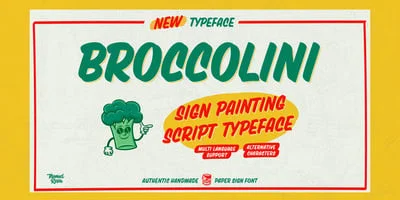
Broccolini Font
Broccolini Font is perfect for organic design projects including health food stores, vegetarian restaurants, organic farming cooperatives, plant-based nutrition brands, healthy lifestyle magazines, green smoothie bars, organic produce markets, and wellness-focused marketing campaigns. This fresh typeface works perfectly for vegan cafes, organic grocery chains, nutritional supplement companies, farm-to-table establishments, and projects that celebrate healthy eating and the nutritional benefits of fresh vegetables and plant-based living.
What makes Broccolini Font exciting is its fresh organic character that perfectly captures the essence of healthy nutrition and plant-based vitality. The font features crisp letterforms with vegetable-inspired curves that reflect the natural freshness and nutritional abundance of organic produce. Its healthy design elements embody the spirit of wellness nutrition and organic farming, making it perfect for projects that need to convey freshness, health, and connection to organic food culture. The carefully crafted fresh proportions create an atmosphere of nutritional sophistication and organic authenticity.
Broccolini Font comes in multiple family variations including fresh, organic, healthy, and nutritious styles. Each weight maintains the distinctive vegetable character while offering different levels of fresh intensity and organic presence. The font family includes organic alternates, fresh ligatures, and healthy variations that provide designers with comprehensive options for creating truly authentic and nutritionally inspired typographic compositions that celebrate wellness excellence.
Whether you're designing health food branding, creating organic marketing materials, or developing nutrition promotional graphics, Broccolini Font provides the perfect typographic foundation for projects that celebrate healthy excellence and organic sophistication. This remarkable typeface transforms ordinary text into compelling expressions of nutritional wisdom and organic freshness. Download this healthy font today and nourish your design projects with the organic authenticity and fresh vitality that captures the essential spirit of healthy eating and plant-based nutrition excellence.